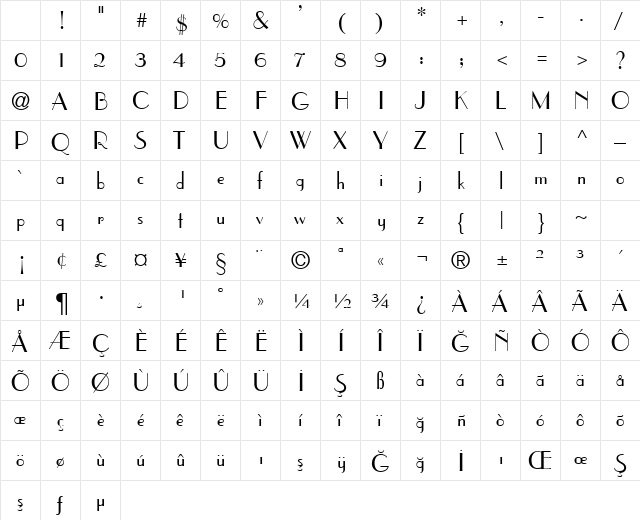
Complete TR Paragon Plain glyph index. Displaying only characters natively supported by TR Paragon Plain font.
TR Paragon is a composed and adaptable typeface that performs quietly and consistently across a wide range of design contexts.